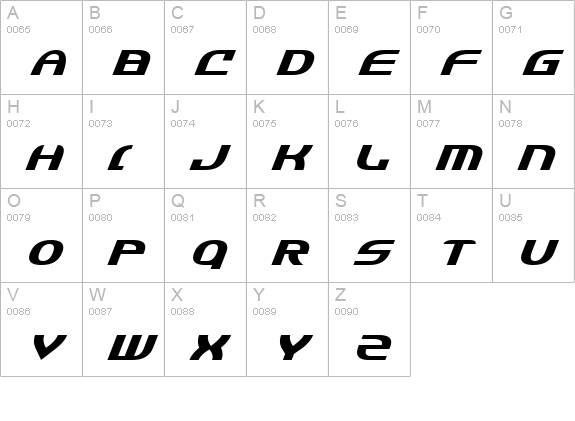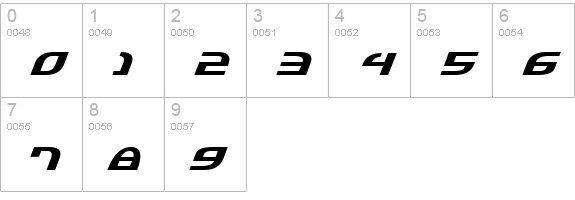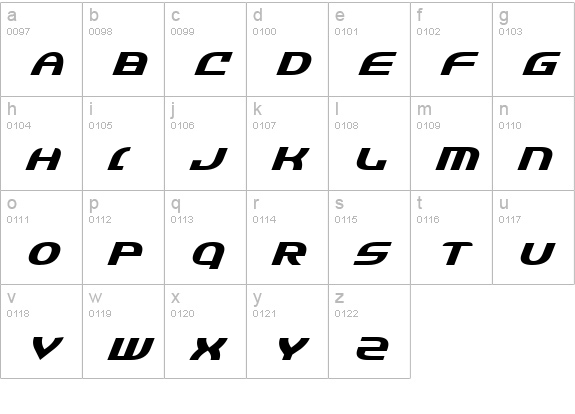
Jannisaries Expanded Italic is a distinctive, extended-width, italic variant in the Jannisaries typeface family \xE2\x80\x94 well suited to design and typography projects.
Introducing Jannisaries Expanded Italic font, a captivating and versatile typeface that effortlessly combines elegance and modernity. With its strikingly slanted italic design, this font exudes a sense of sophistication and creativity, making it perfect for a wide range of design projects. Jannisaries Expanded Italic font showcases a unique blend of sleek curves and sharp angles, creating a visually stunning effect. Its expanded letterforms add a touch of boldness, giving your text a pronounced presence on any medium. Whether you are designing a logo, website, poster, or any other creative endeavor, this font will undoubtedly make a lasting impression. What sets Jannisaries Expanded Italic font apart is its exceptional legibility, ensuring that your message is conveyed with clarity and precision. Its meticulously crafted letterforms guarantee seamless readability, regardless of the font size or medium. This font truly embodies the perfect balance between form and function. But what makes Jannisaries Expanded Italic font even more remarkable is that it is freely available to download at FontsMarket.com. Yes, you read that right – this stunning typeface can be yours without any cost. FontsMarket.com is a trusted source for high-quality fonts, and they offer this font as a gift to designers and creatives who wish to elevate their projects without breaking the bank. So, whether you're a professional designer or an aspiring creative, Jannisaries Expanded Italic font is the ideal choice for adding a touch of sophistication and modernity to your work. With its captivating design, exceptional legibility, and the added bonus of being freely available, this font is a must-have in your typography collection. Download Jannisaries Expanded Italic font today from FontsMarket.com and unlock a world of endless creative possibilities.